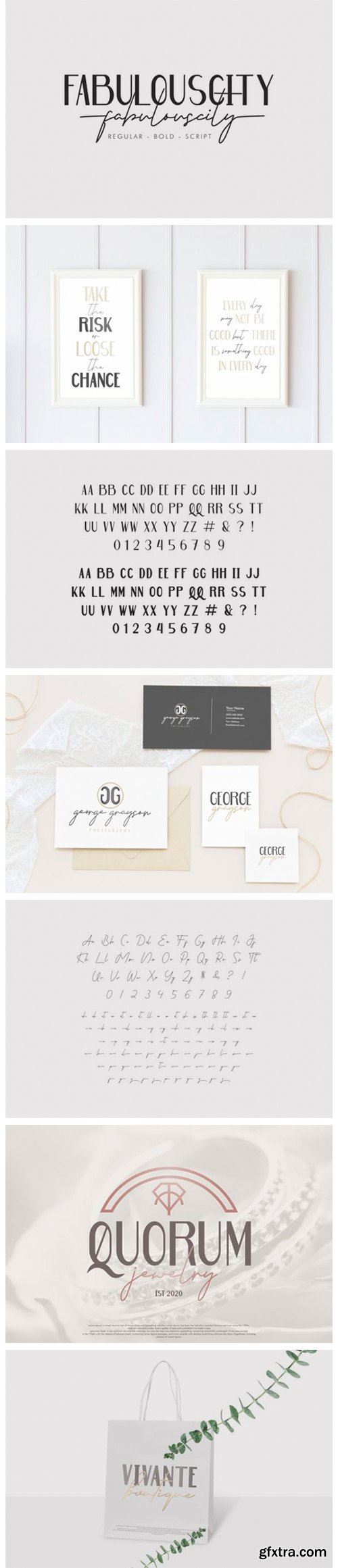
Fabulouscity Font
Fabulouscity is a spectacular duo font (sans serif and script). Incredibly versatile, this font fits a wide pool of designs, elevating them to the highest levels. Add this font to your favorite creative ideas and notice how it makes them come alive!